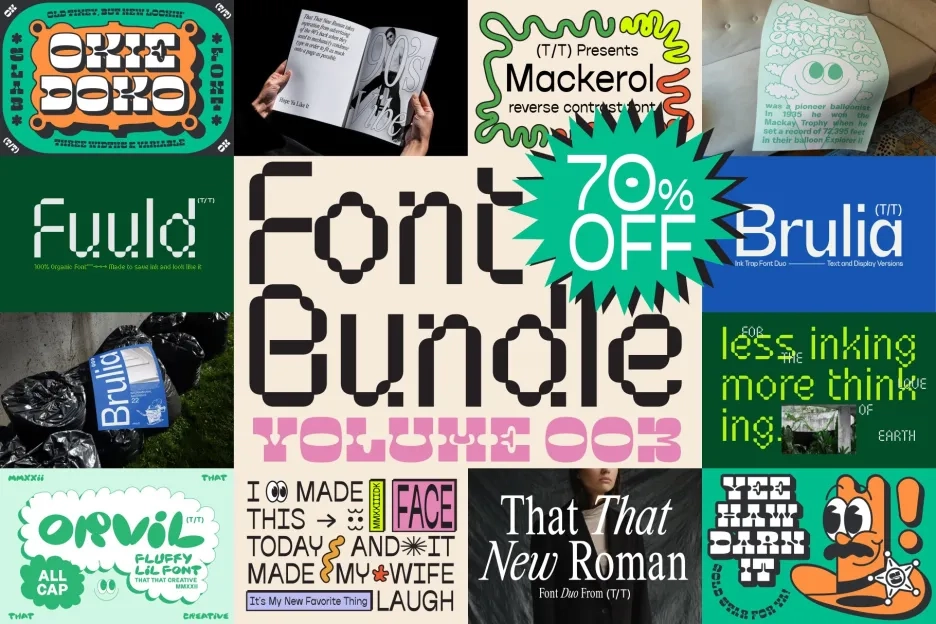
Hand Picked Font Bundle 3
Introducing the Hand Picked Font Bundle 3, a curated collection of unique and stylish fonts designed to elevate your creative projects. This bundle features a variety of font styles, including serif, sans-serif, script, and display fonts, ensuring you have the perfect typeface for any occasion.
• Multiple font styles: serif, sans-serif, script, and display
• Various weights and styles for versatility
Each font in this bundle has been meticulously crafted, providing excellent legibility and aesthetic appeal. Whether you need a bold headline typeface or a delicate script for invitations, this collection has you covered.